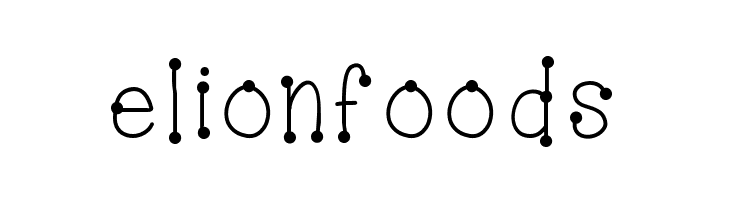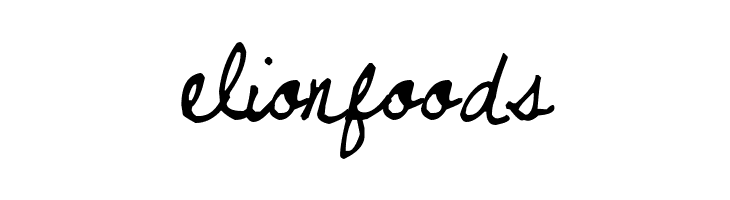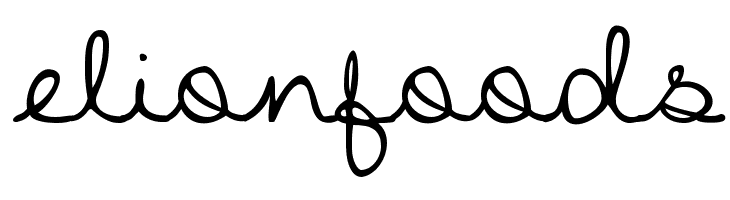
A cursive, handwritten-style font with elegant loops and fluid connections.
A dynamic, slanted handwritten font with fluid, connected letters.
A playful font with characters connected by dots, ideal for creative projects.
A flowing, cursive script font with elegant, connected letters and dramatic flourishes.
A hand-drawn, pipe-like font with bold, interconnected lines and a playful style.
A playful font made of interconnected circles, perfect for creative projects.
A playful, bubble-themed decorative font with interconnected circular patterns.
A dynamic and flowing script font with elegant, interconnected strokes.
A playful, casual handwritten font with smooth, connected strokes.
A playful, handwritten font with interconnected characters and a casual style.
A playful and whimsical script font with fluid, connected letterforms.
A fluid, cursive handwritten font with elegant, connected characters.
A playful, casual handwritten font with smooth, connected strokes.
A playful, handwritten script font with smooth, connected letters.
A playful and whimsical script font with flowing, interconnected letters.
An elegant, flowing script font with ornate, interconnected letterforms.
A playful and dynamic script font with flowing, interconnected letters.
An elegant script font with flowing, interconnected letters and a sophisticated style.
A bold, flowing script font with elegant, interconnected characters.
An elegant, whimsical script font with flowing, interconnected strokes.
An elegant, whimsical script font with flowing, interconnected letters and intricate flourishes.
A playful, handwritten font with interconnected, flowing characters.
A decorative font with elongated, interconnected letterforms and bold strokes.